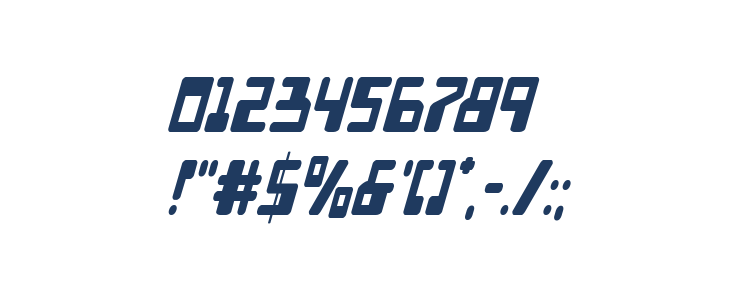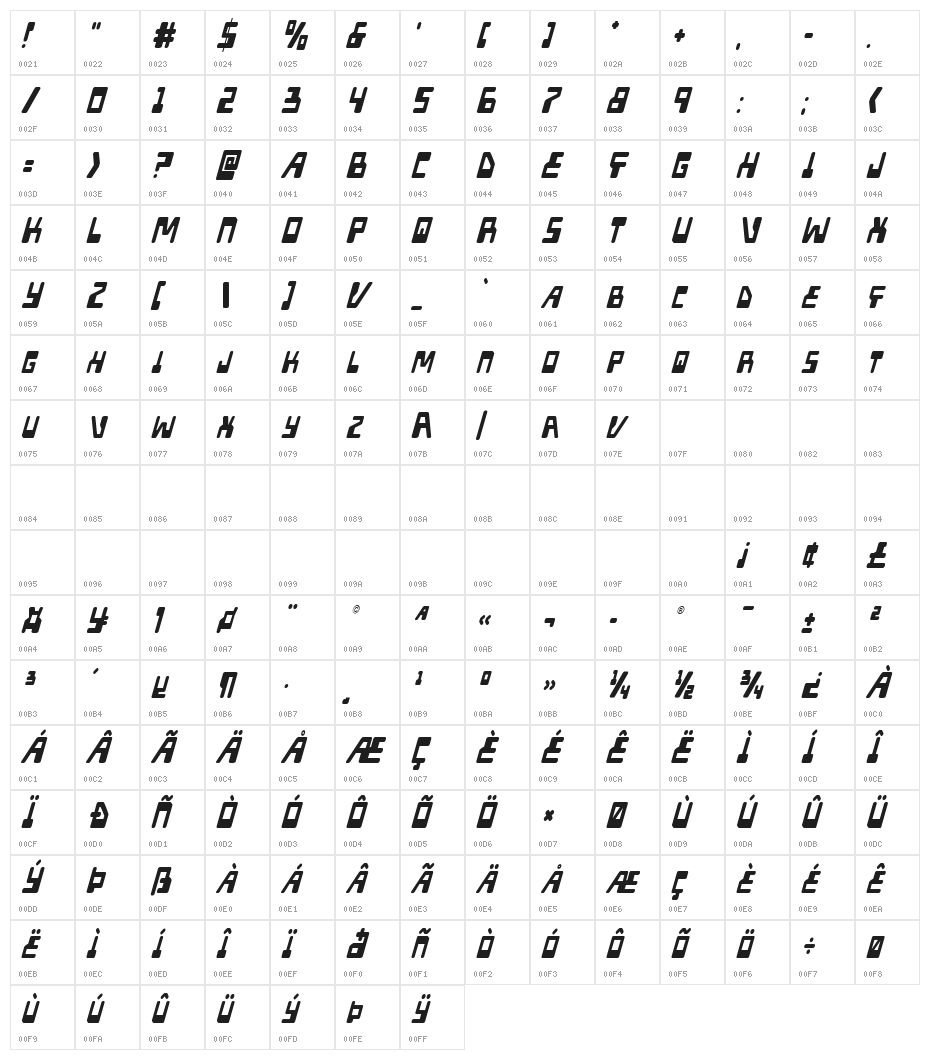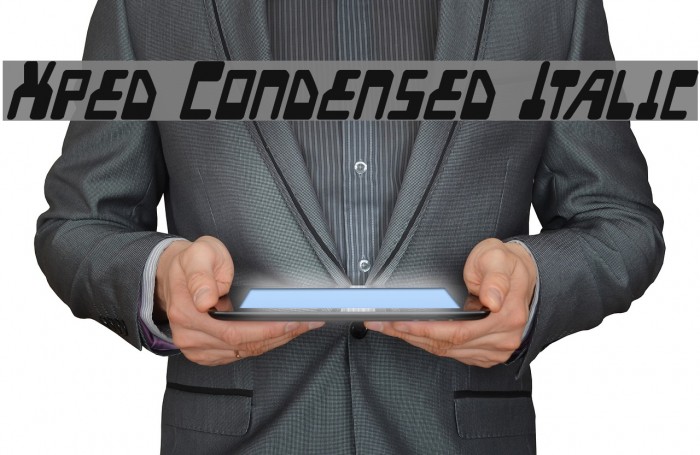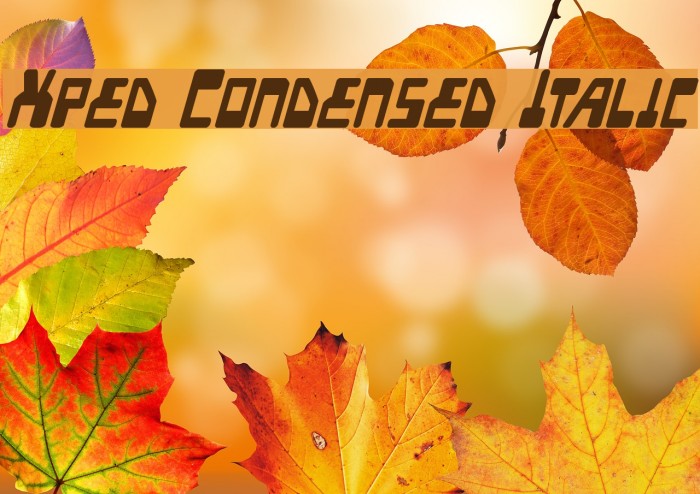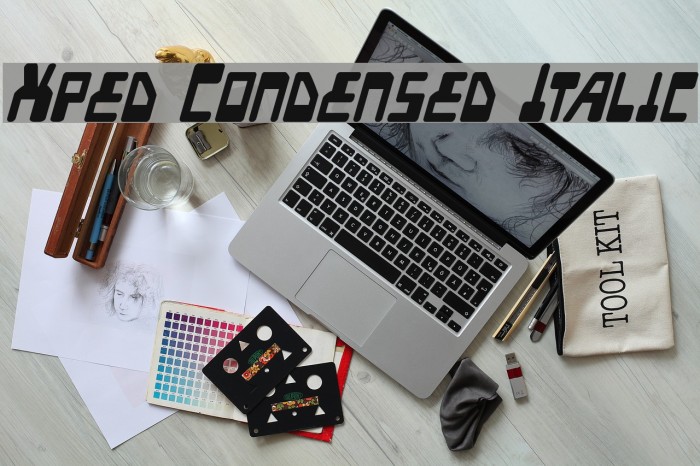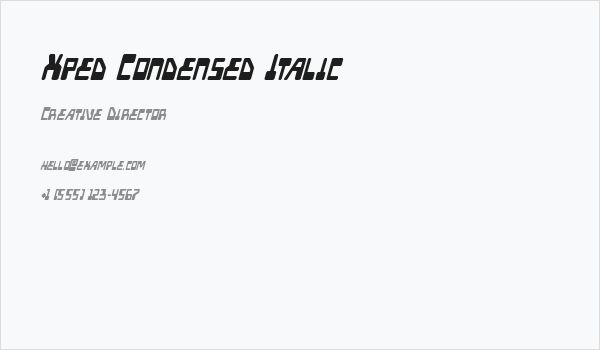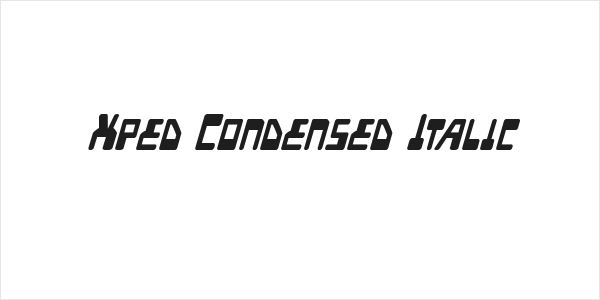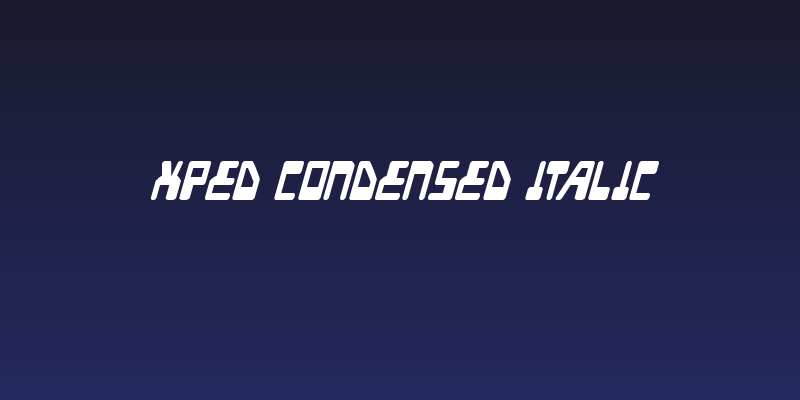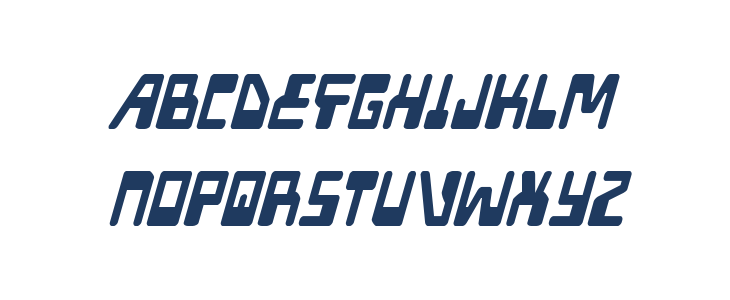
Xped Condensed Italic Font
Xped Condensed Italic Description
This font exhibits a bold and dynamic style with a condensed and italicized form. The characters are designed with a forward-leaning slant, giving a sense of motion and speed. The strokes are thick and consistent, providing a strong visual impact. The geometric shapes of the letters are clean and modern, with sharp angles and a uniform width that enhances readability. The font includes both uppercase and lowercase letters, numerals, and a variety of special characters, making it versatile for various design needs. Its unique style is suitable for projects that require a contemporary and energetic look.